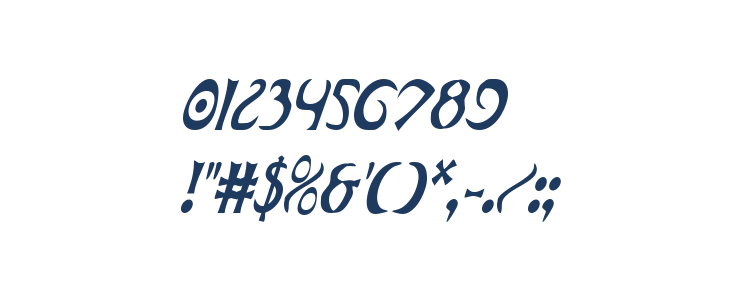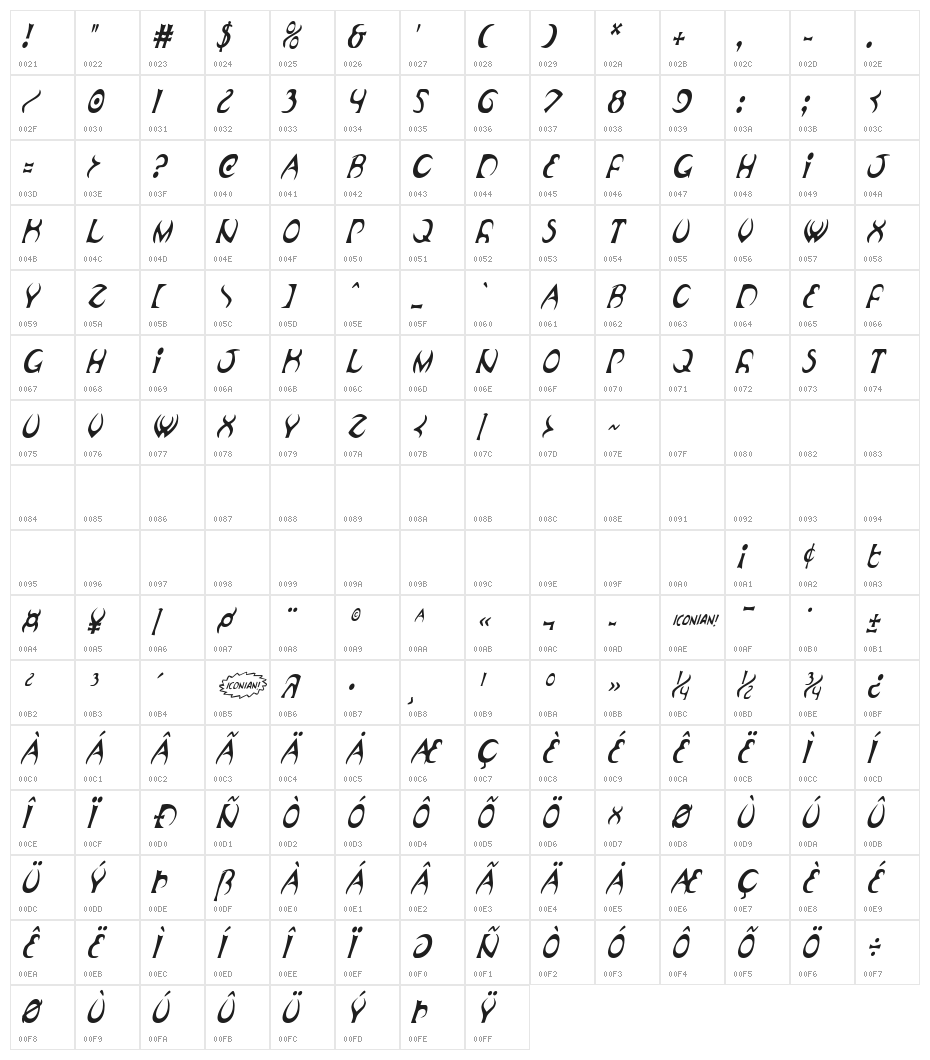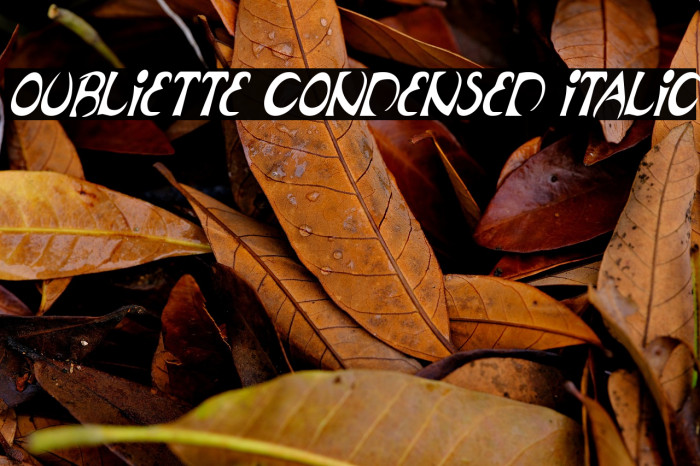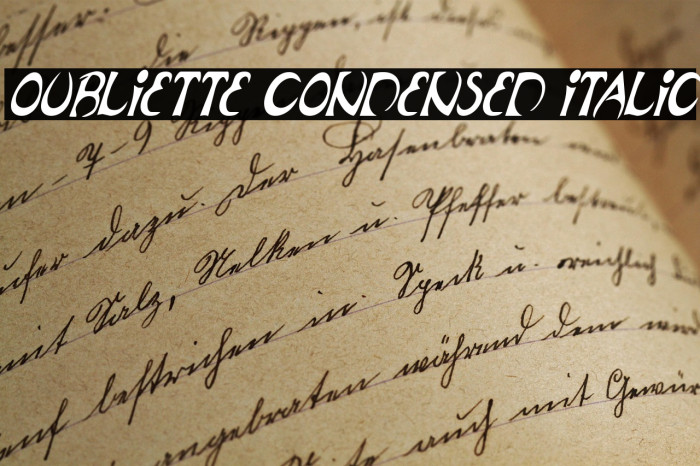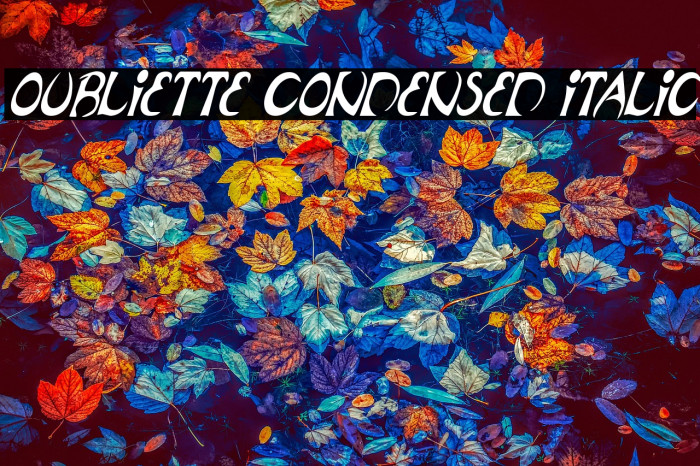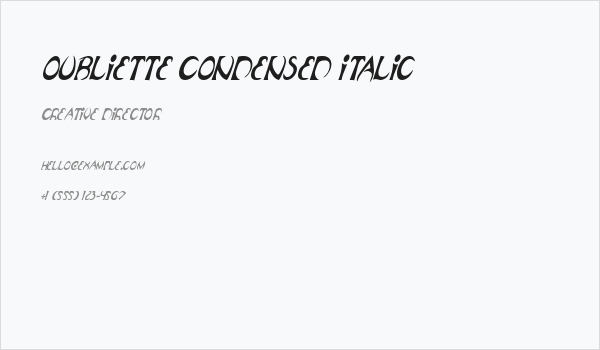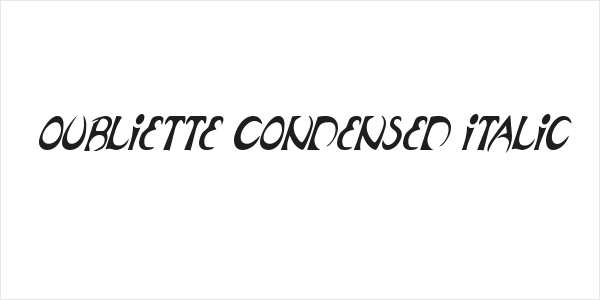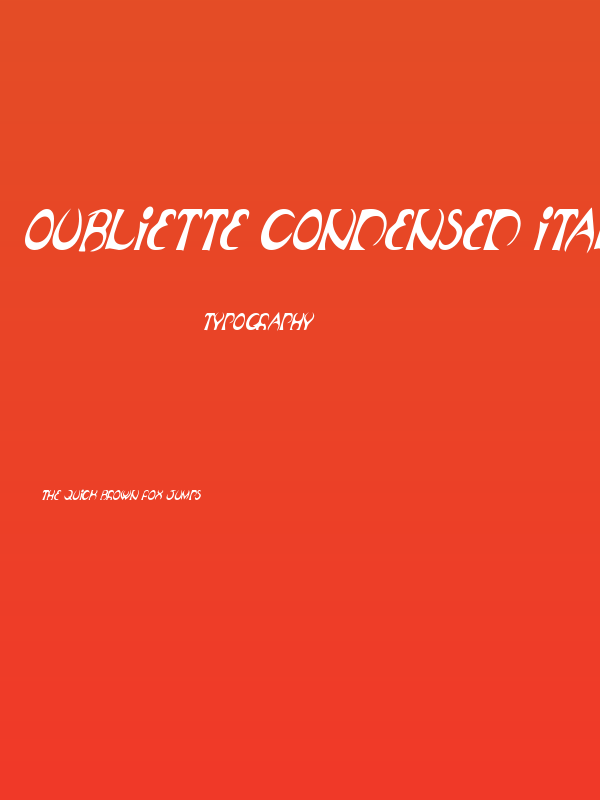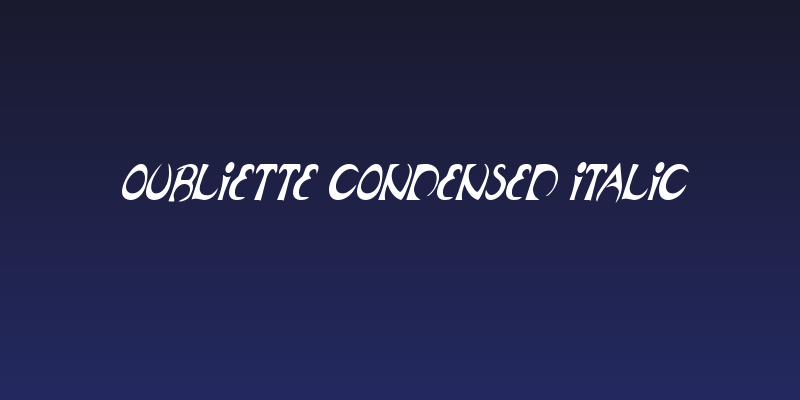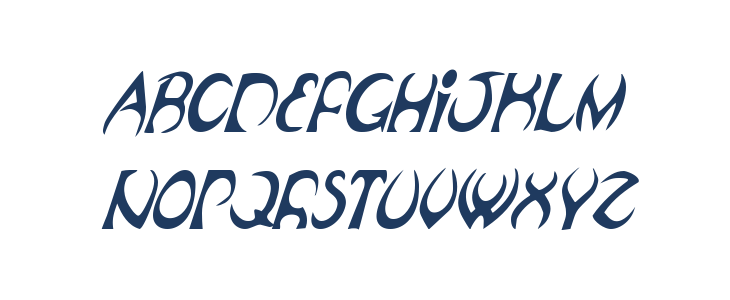
Oubliette Condensed Italic Font
Oubliette Condensed Italic Description
This font features a dynamic and fluid design with a condensed and italicized style, giving it a sense of movement and energy. The characters are uniquely crafted with sharp, angular strokes and smooth curves, creating a striking visual contrast. The uppercase and lowercase letters maintain a consistent style, while the numerals and special characters are designed to complement the overall aesthetic. The font's artistic flair makes it suitable for creative and bold design projects.
| Proposed Projects | Ideal for branding, posters, album covers, and any project requiring a bold, artistic touch. |